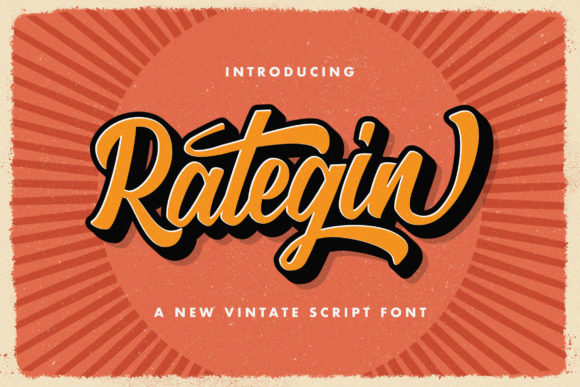
Unleash the Enchantment of Rategin: A Timeless Script Font That Captures Hearts
In the realm of typography, Rategin stands as a beacon of elegance and charm, a vintage-styled script font that transports you to an era of timeless beauty. Its meticulously crafted curves and delicate swashes evoke a sense of nostalgia, while its strong and confident strokes exude a dynamic energy that commands attention.
With Rategin as your chosen font, your designs will radiate an air of sophistication and distinction. Whether you seek to craft captivating logos, heartfelt invitations, or visually stunning social media graphics, Rategin's versatility knows no bounds. Its PUA encoding grants you effortless access to a treasure trove of glyphs and swashes, empowering you to unleash your creativity and weave enchanting visual narratives.
Imagine your wedding invitations adorned with Rategin's graceful script, each letter flowing seamlessly into the next, creating an aura of romance and elegance that will leave your guests spellbound. Or envision your brand logo, emblazoned with Rategin's bold and confident strokes, exuding a sense of authority and trustworthiness that will set your business apart from the crowd.
Rategin's inherent readability makes it an ideal choice for projects where clarity and legibility are paramount. Whether you're crafting brochures, e-books, or captivating presentations, Rategin ensures that your message is conveyed with crystal-clear precision, leaving a lasting impression on your audience.
Beyond its aesthetic appeal and practical benefits, Rategin embodies an emotional connection that resonates deeply with users. Its nostalgic charm evokes a sense of longing for simpler times, while its dynamic energy sparks a feeling of excitement and anticipation. By incorporating Rategin into your designs, you tap into a reservoir of emotions, creating a profound impact that lingers long after the initial encounter.